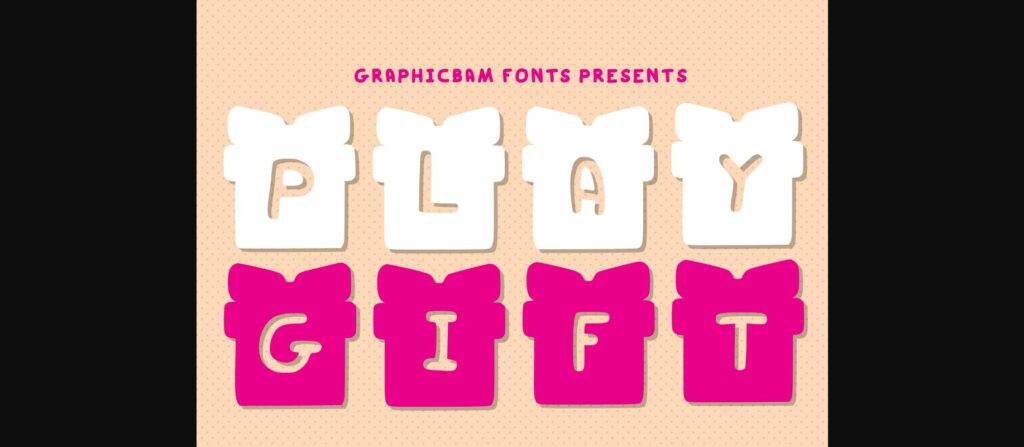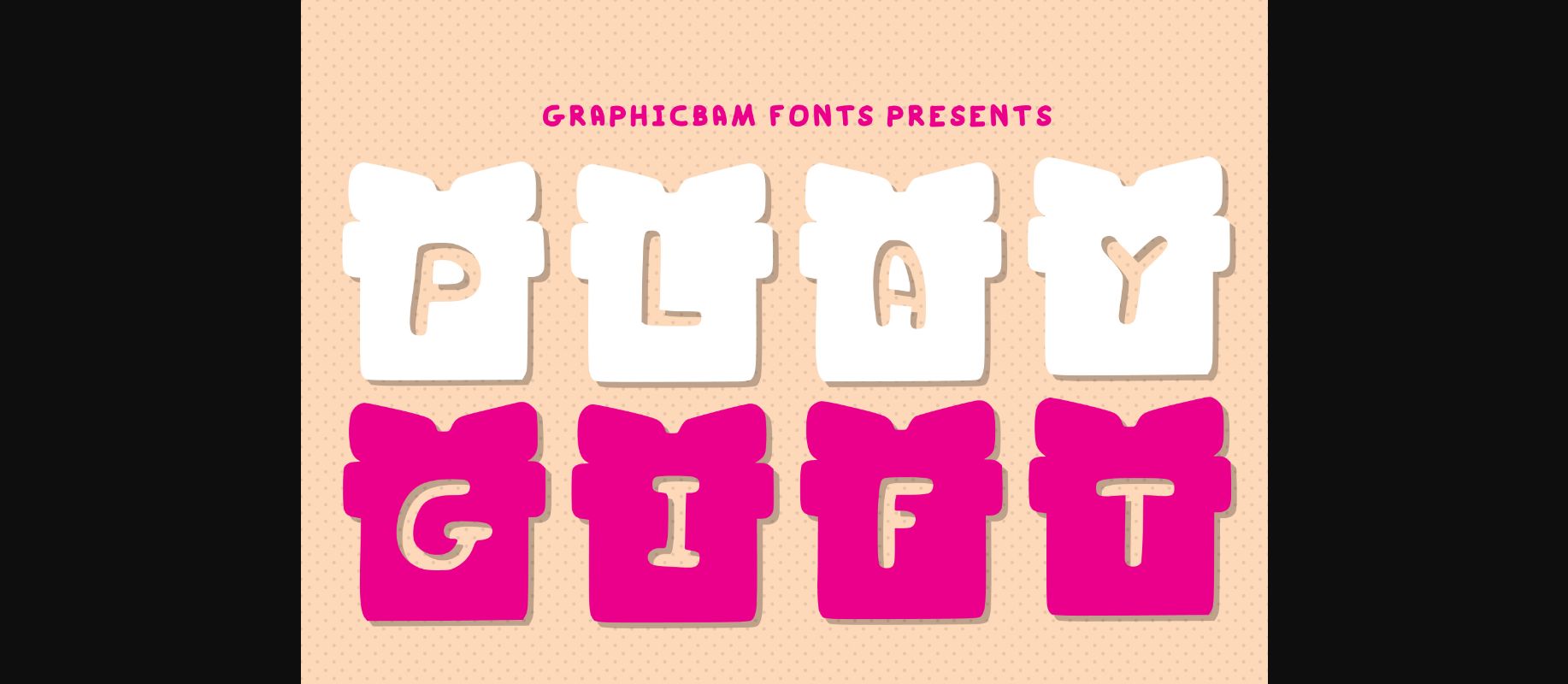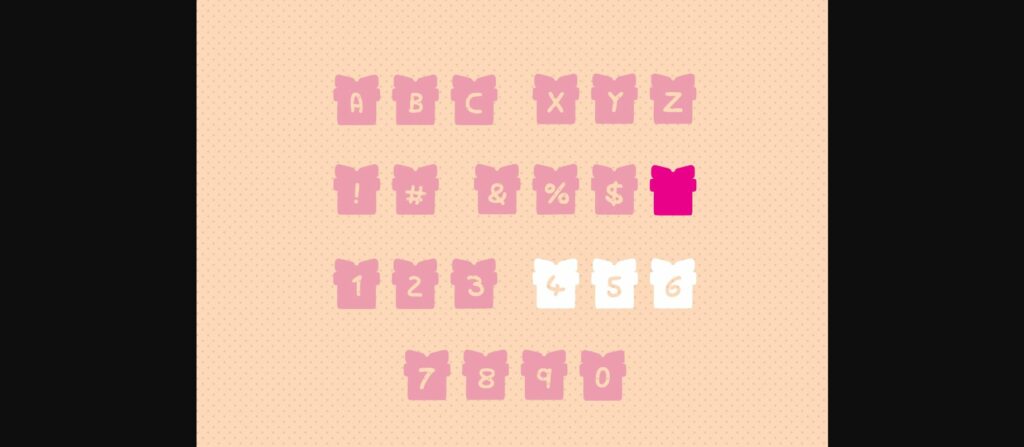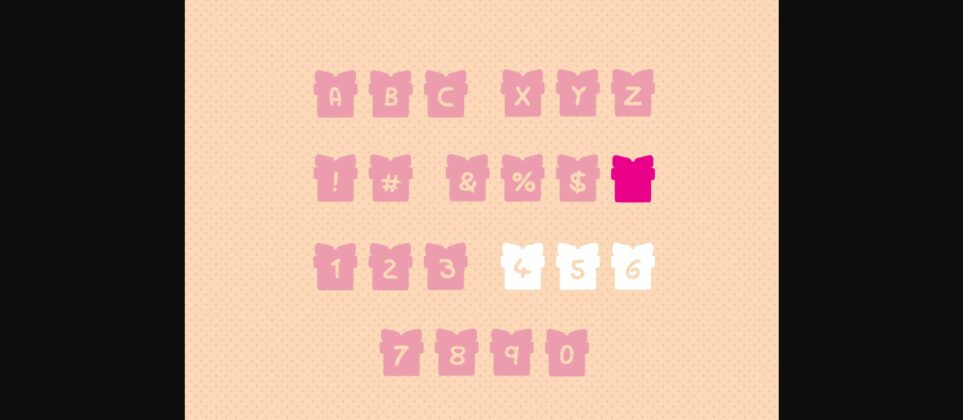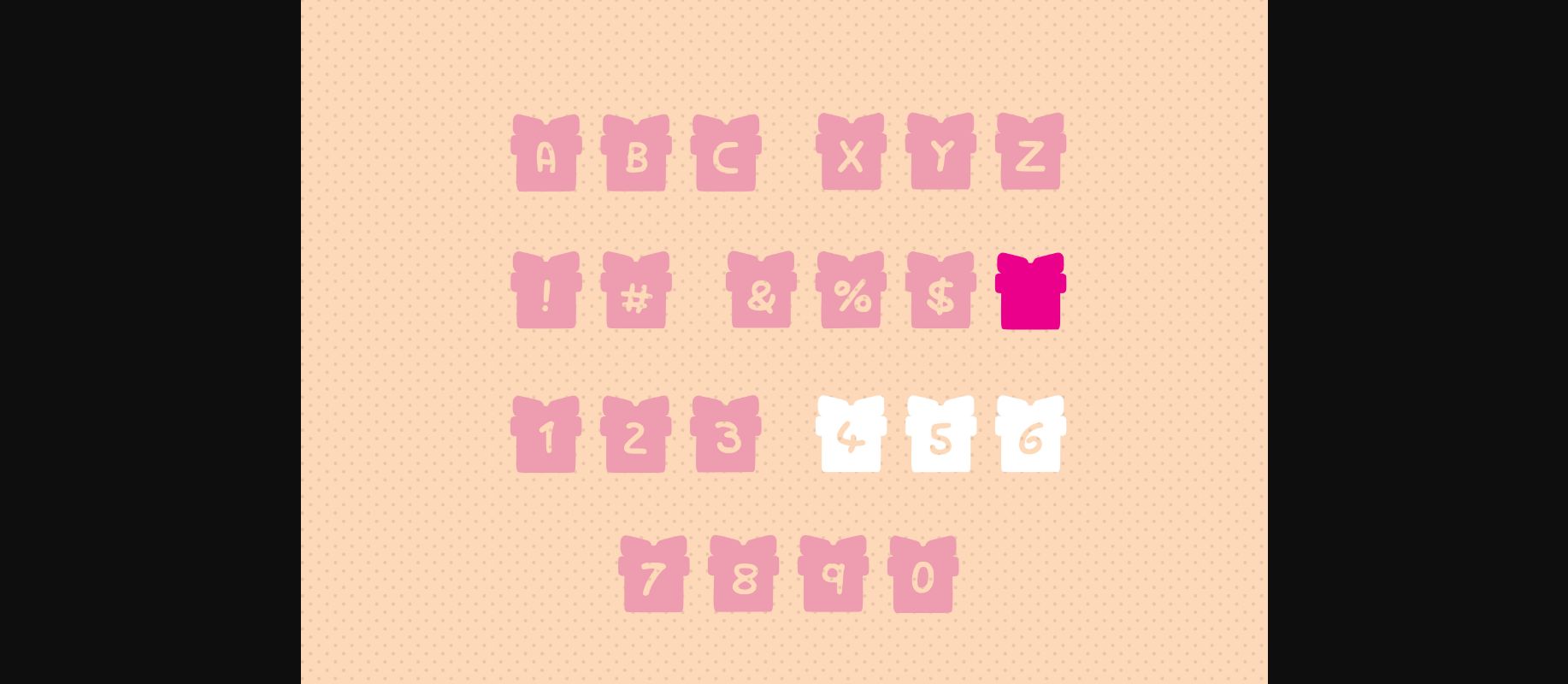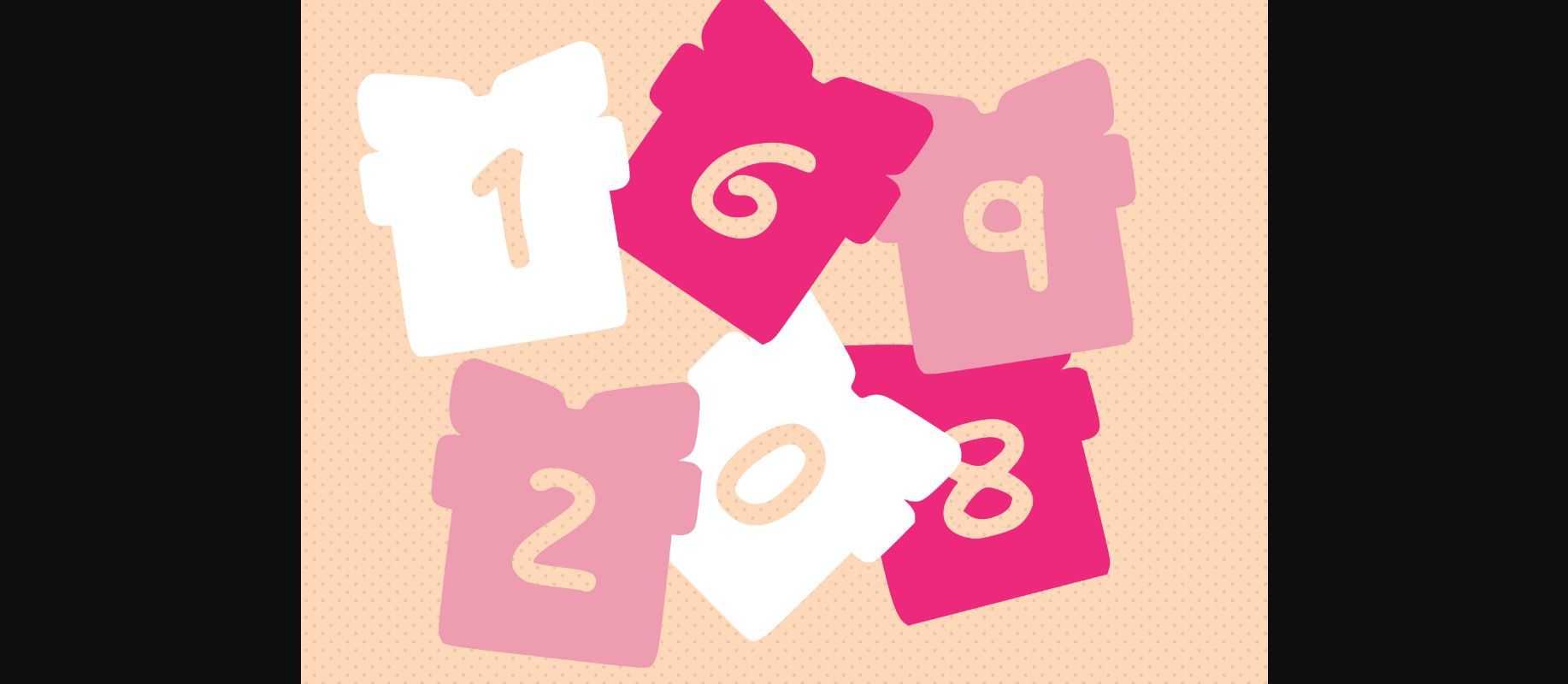
Play Gift Font
About Play Gift Font
Play Gift is a playful, child-like decorative font, perfect to spell out anything to do with presents! Handwritten with rounded sides make it a friendly and joyful font. Great for schools, home teaching, or a craft project.